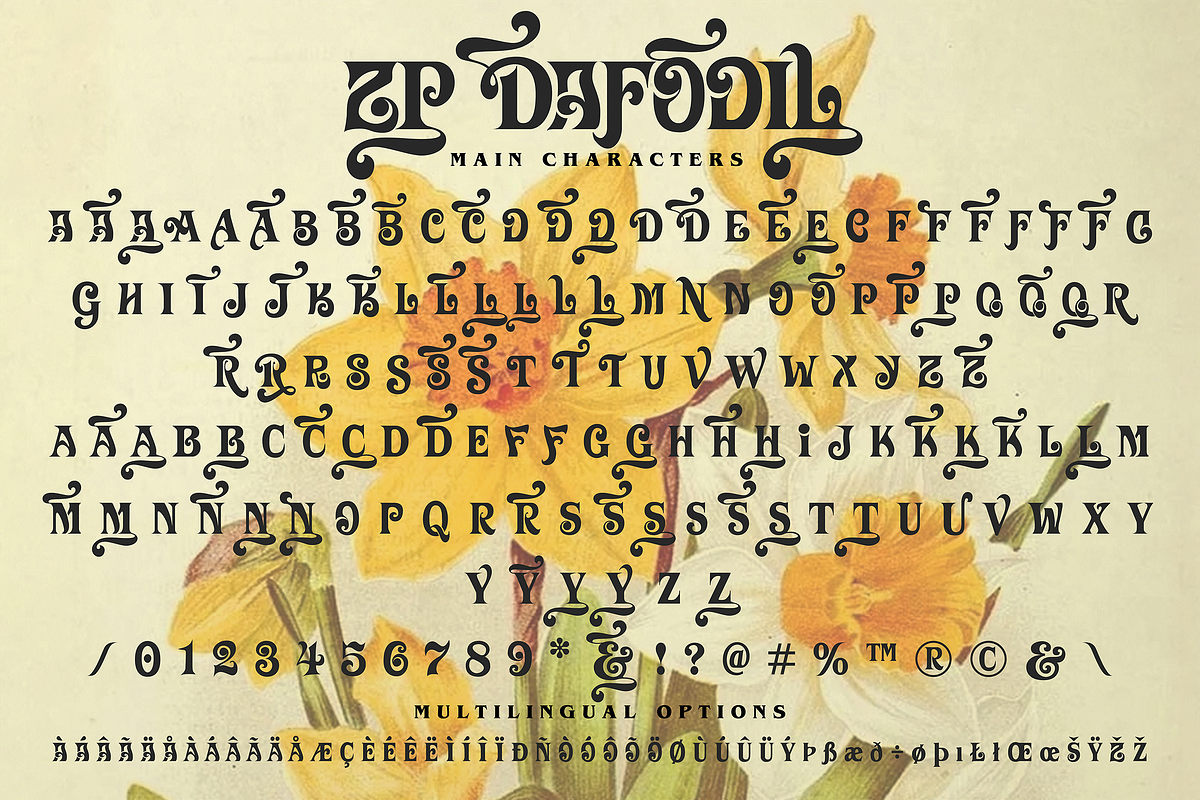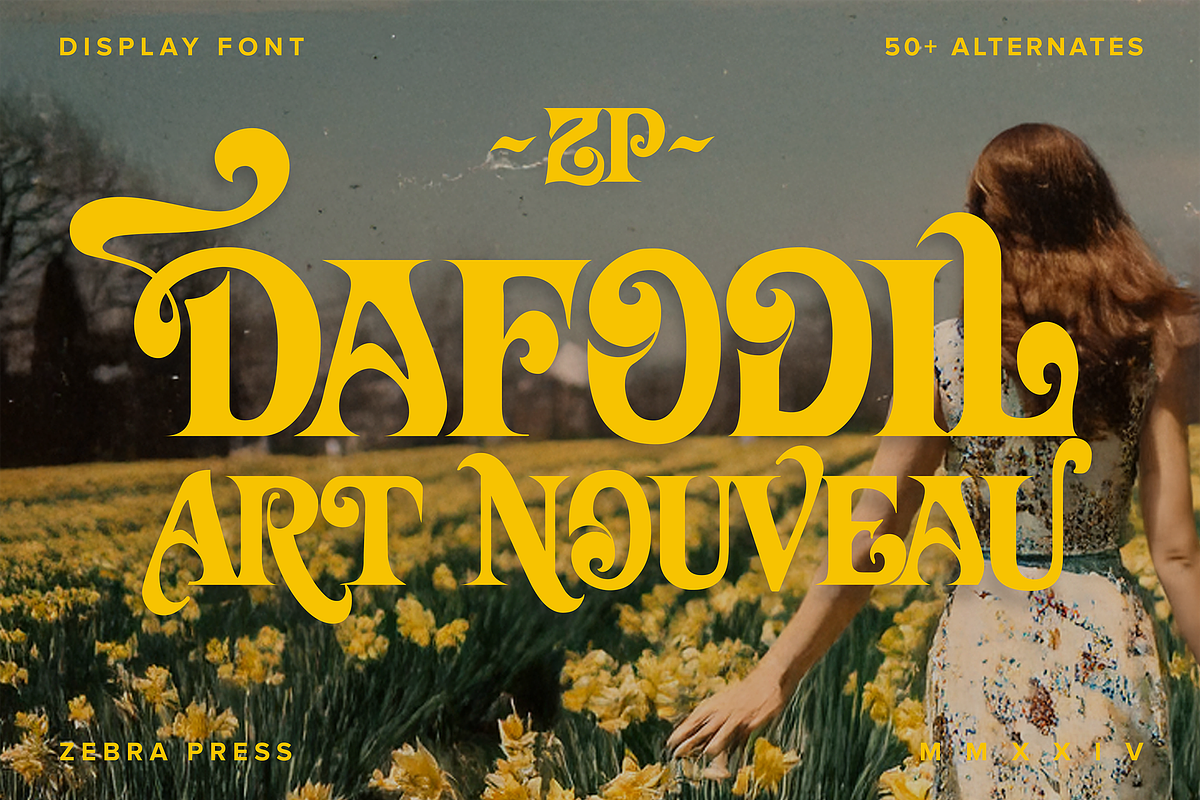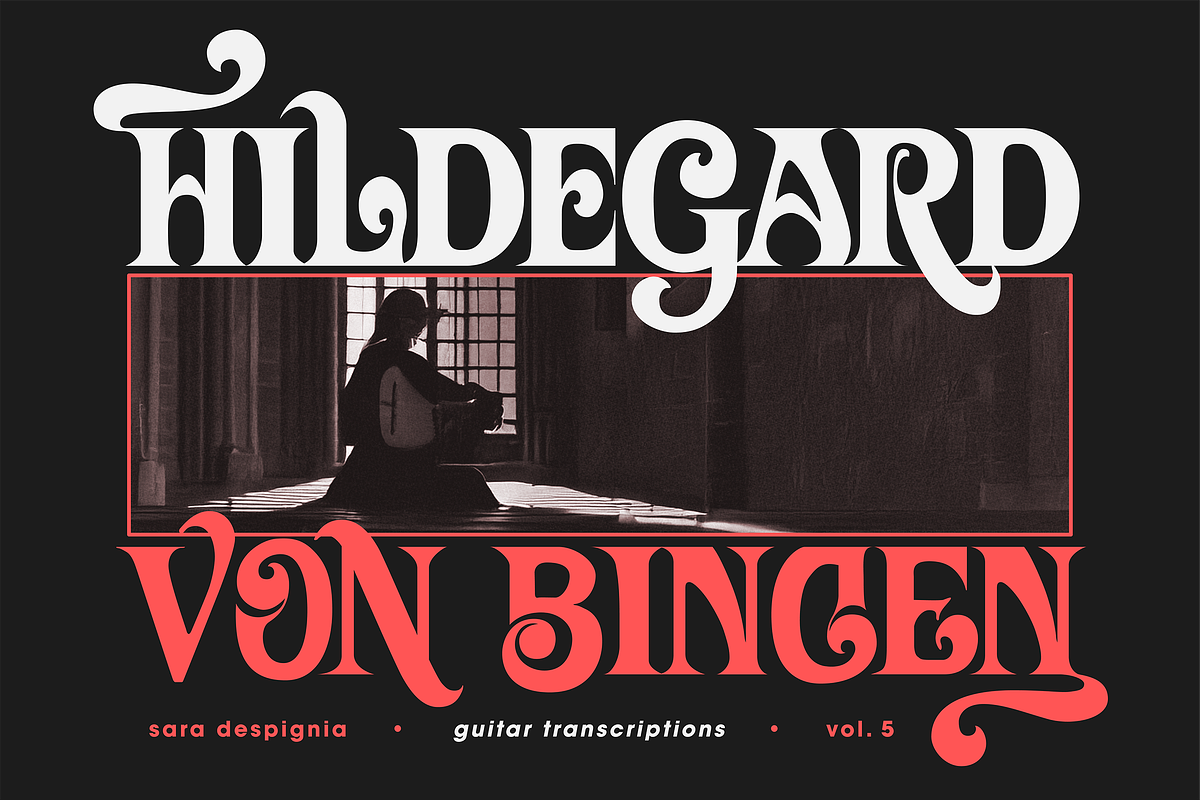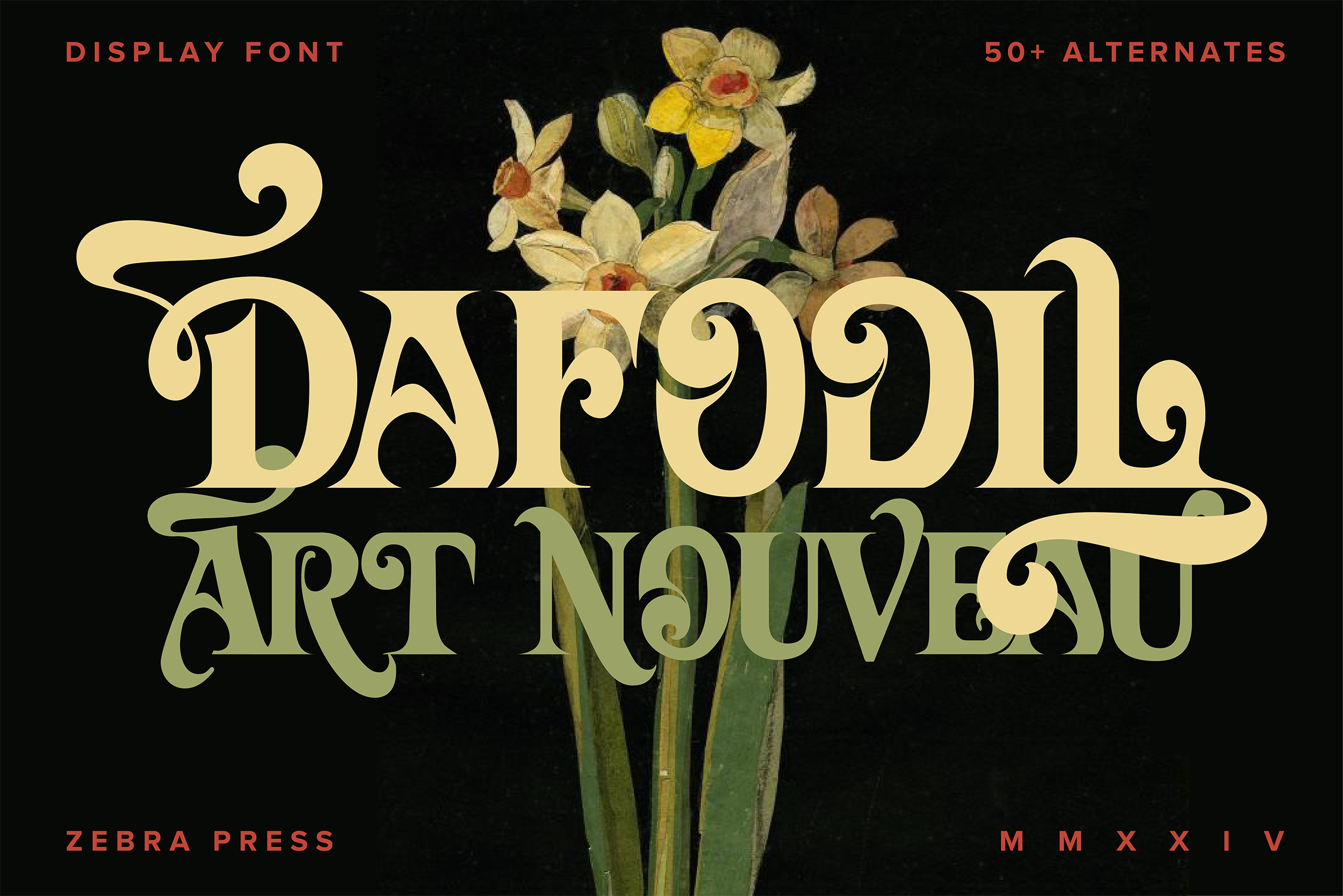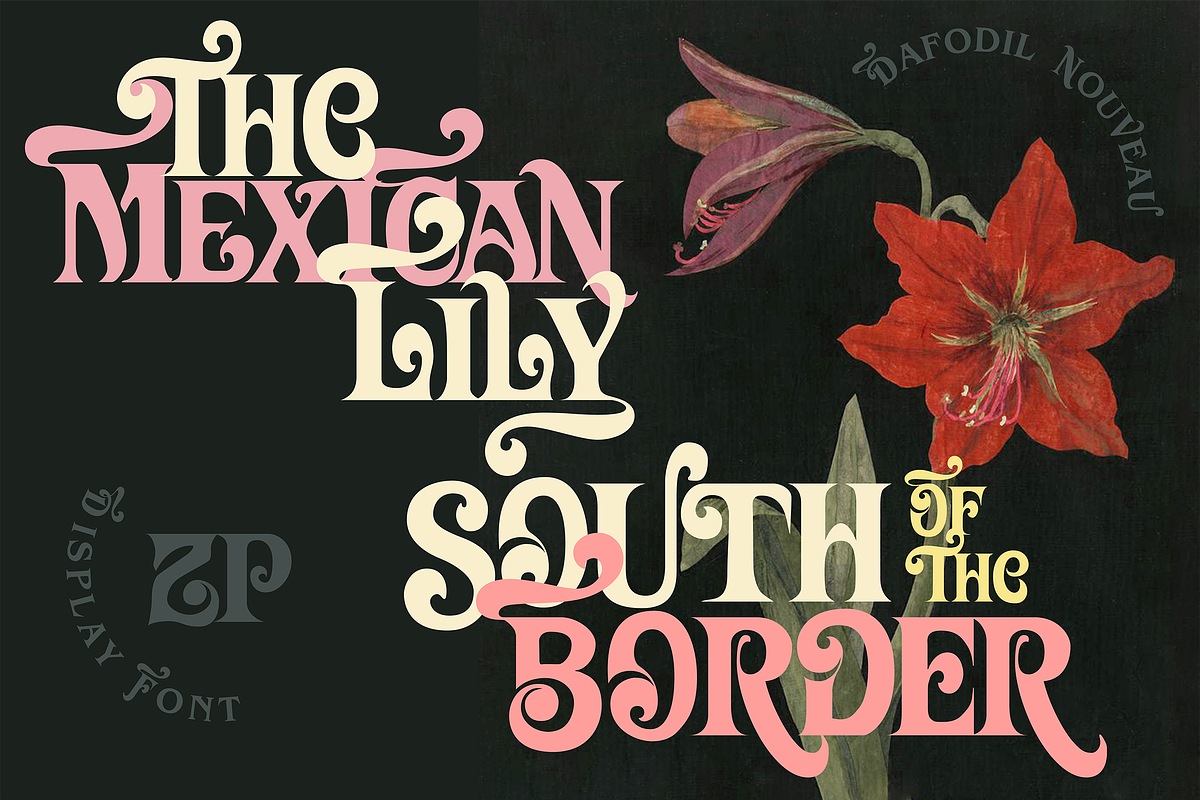
ZP DAFODIL - Art Nouveau Font
ZP DAFODIL is an art nouveau display font with many alternate characters & swashes. Hand-drawn with edges sharpened for legibility.
The characters were drawn with inspiration from Herb Alpert Album Covers & Dune book covers. A flexible unicase font which can look fun (1950s), psychedelic (1960s), or gothic (1970s) depending on which characters you use. Great for branding, weddings, small business, florists, photographers, magazines, music albums covers, store displays & poster displays.